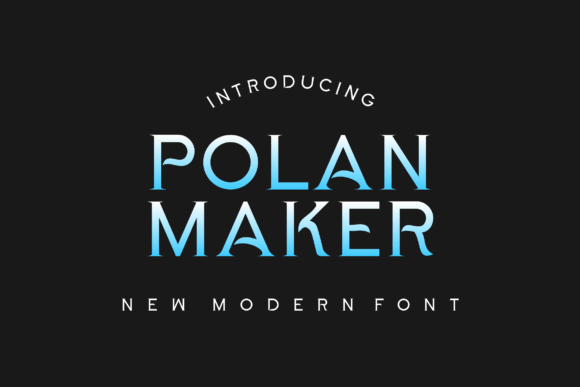
Prepare to be mesmerized by Polan Maker, a font that transcends the boundaries of ordinary typography, beckoning you into a realm of elegance and sophistication. This display font, meticulously crafted by the visionary prayoga_std, is a testament to the transformative power of creativity and design.
Polan Maker's distinctive letterforms dance across the page like delicate brushstrokes, captivating the eye with their graceful curves and sweeping lines. The font's inherent beauty is undeniable, making it a perfect choice for those seeking to evoke a sense of luxury, elegance, and femininity in their projects.
Journey with Polan Maker into a world of boundless creativity. Its versatility knows no bounds, effortlessly adapting to a myriad of design styles and applications. Whether you're crafting logos that exude timeless sophistication, designing print materials that demand attention, or creating digital content that captivates audiences, Polan Maker is your trusted companion.
Step into the spotlight with Polan Maker, the font that elevates your designs to new heights. Its meticulously crafted letterforms, adorned with intricate details and subtle nuances, command attention and leave a lasting impression. Embrace the power of Polan Maker and watch as your creative visions come to life, captivating hearts and igniting imaginations.
Beyond its aesthetic appeal, Polan Maker is a font engineered for excellence. Its unwavering consistency and remarkable legibility ensure seamless readability across various platforms and applications. Experience the joy of effortless design with Polan Maker, where form and function harmoniously coexist.